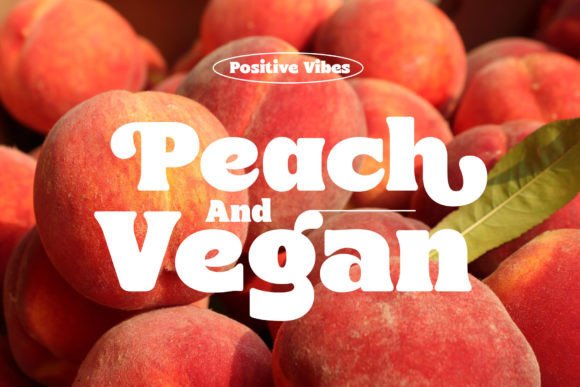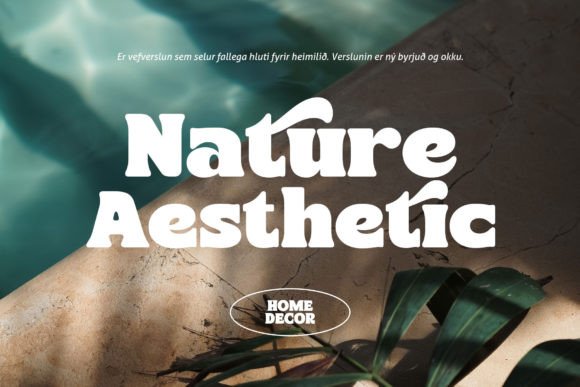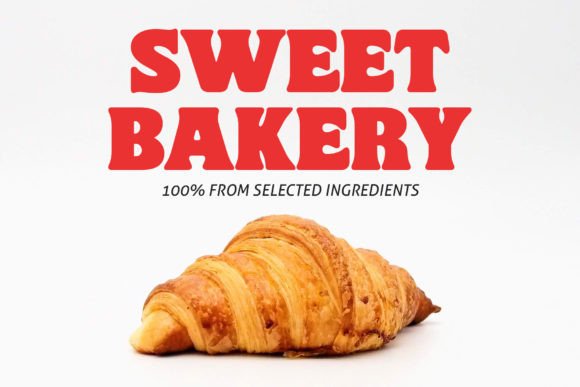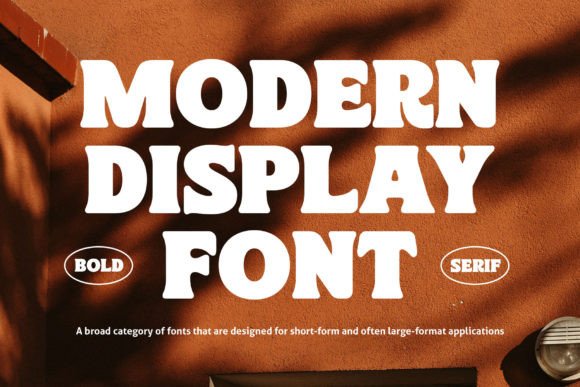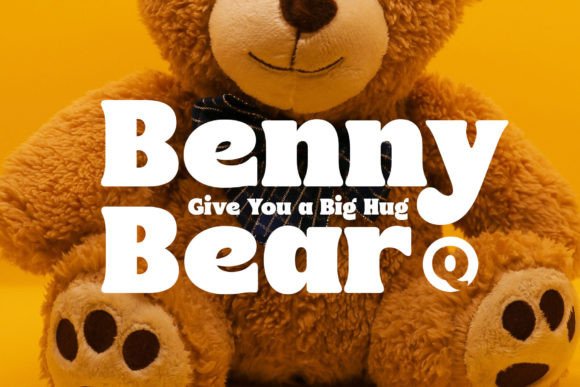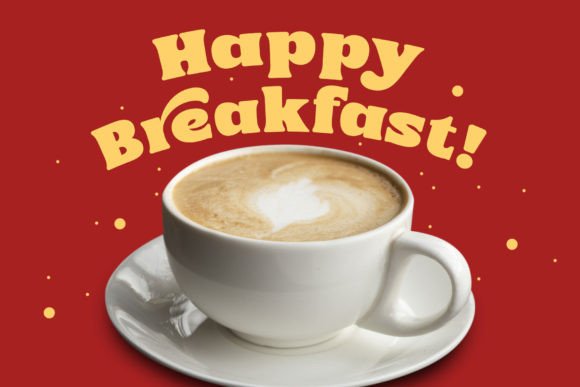
Introduction to Harond Font
Introducing Harond font, a bold serif font with a retro touch.
Inspired by the dynamic and chubby typography style of the 70s, this font exudes a delightful, playful, yet elegant impression, making it ideal for various design themes, especially in the realm of food-related design Harond is a display font best suited for larger sizes.